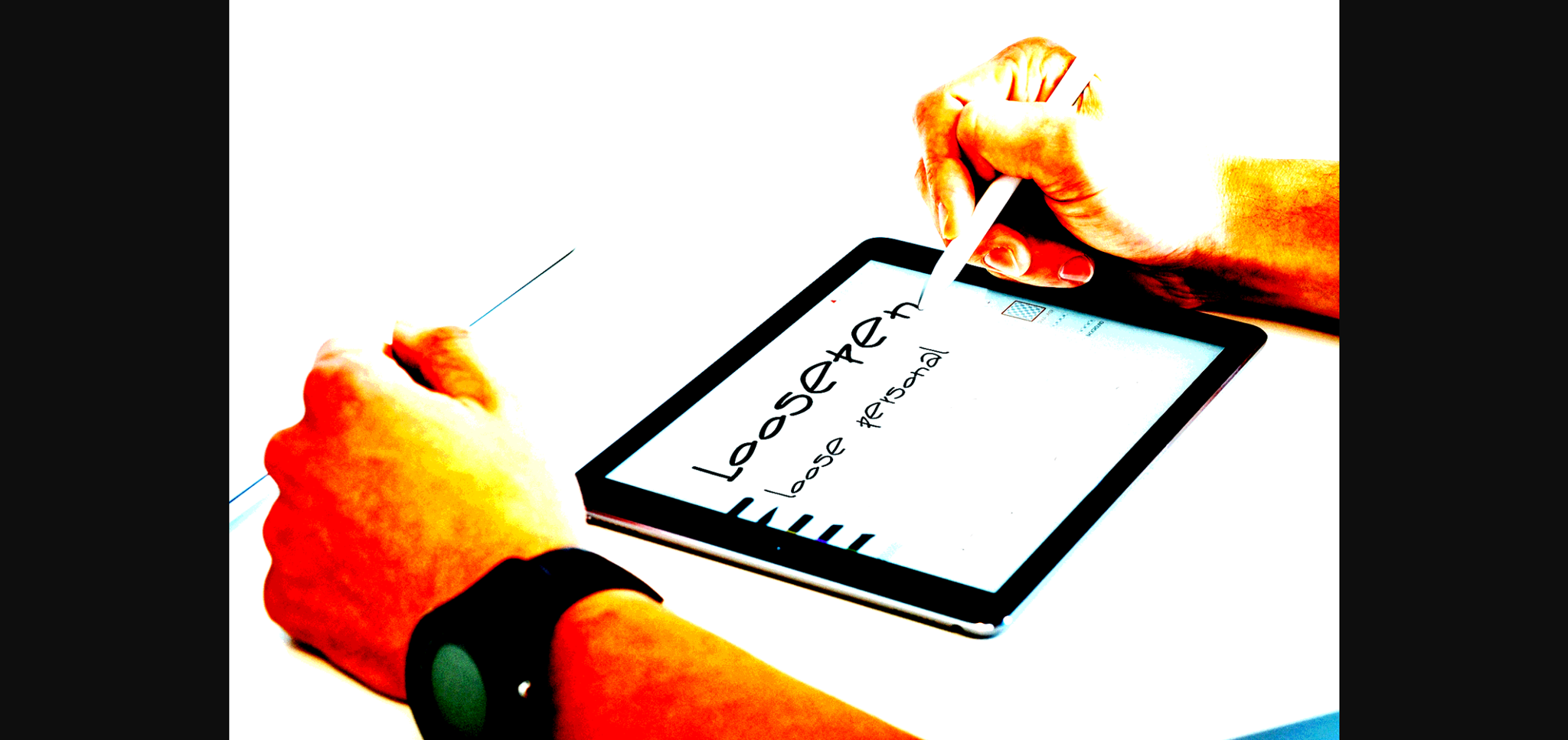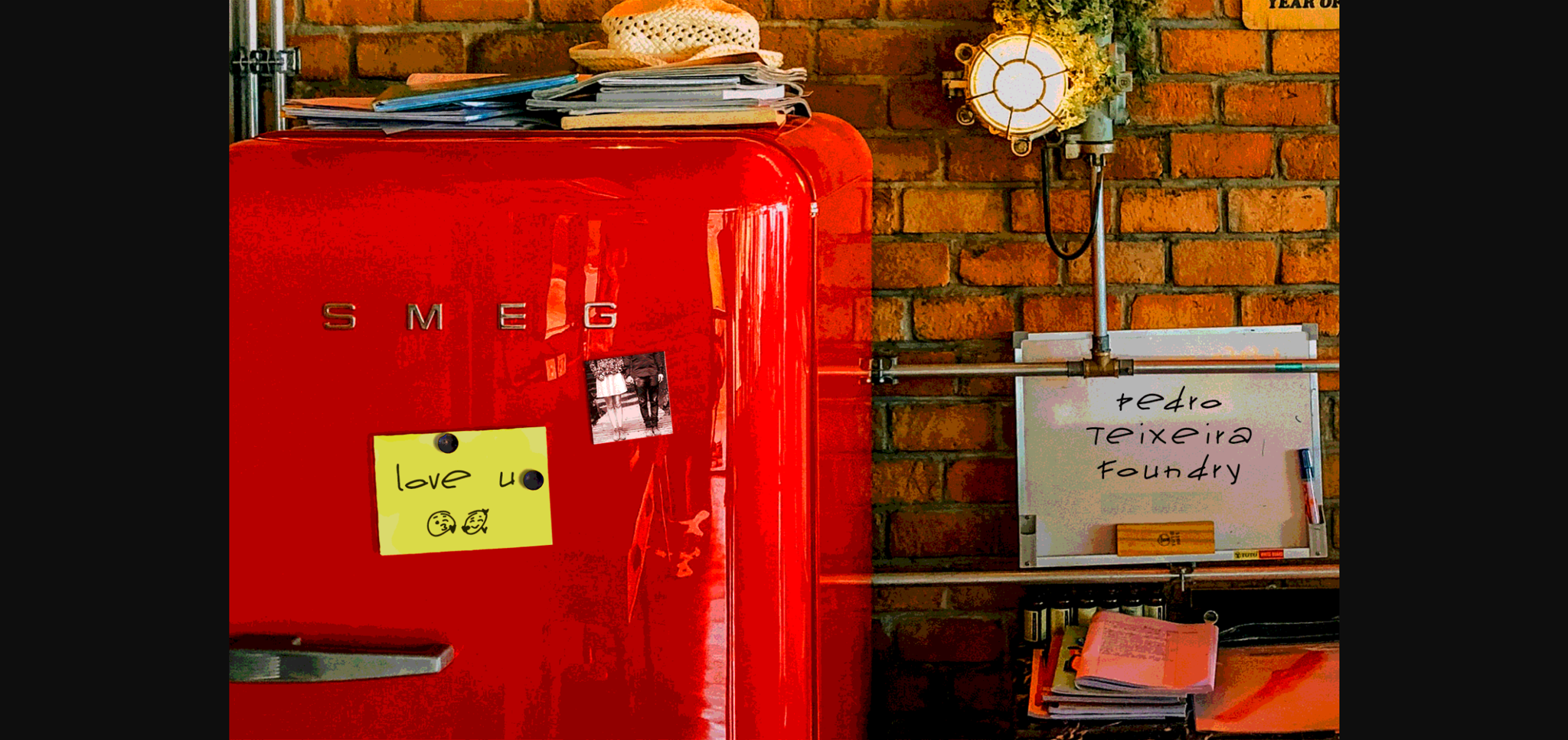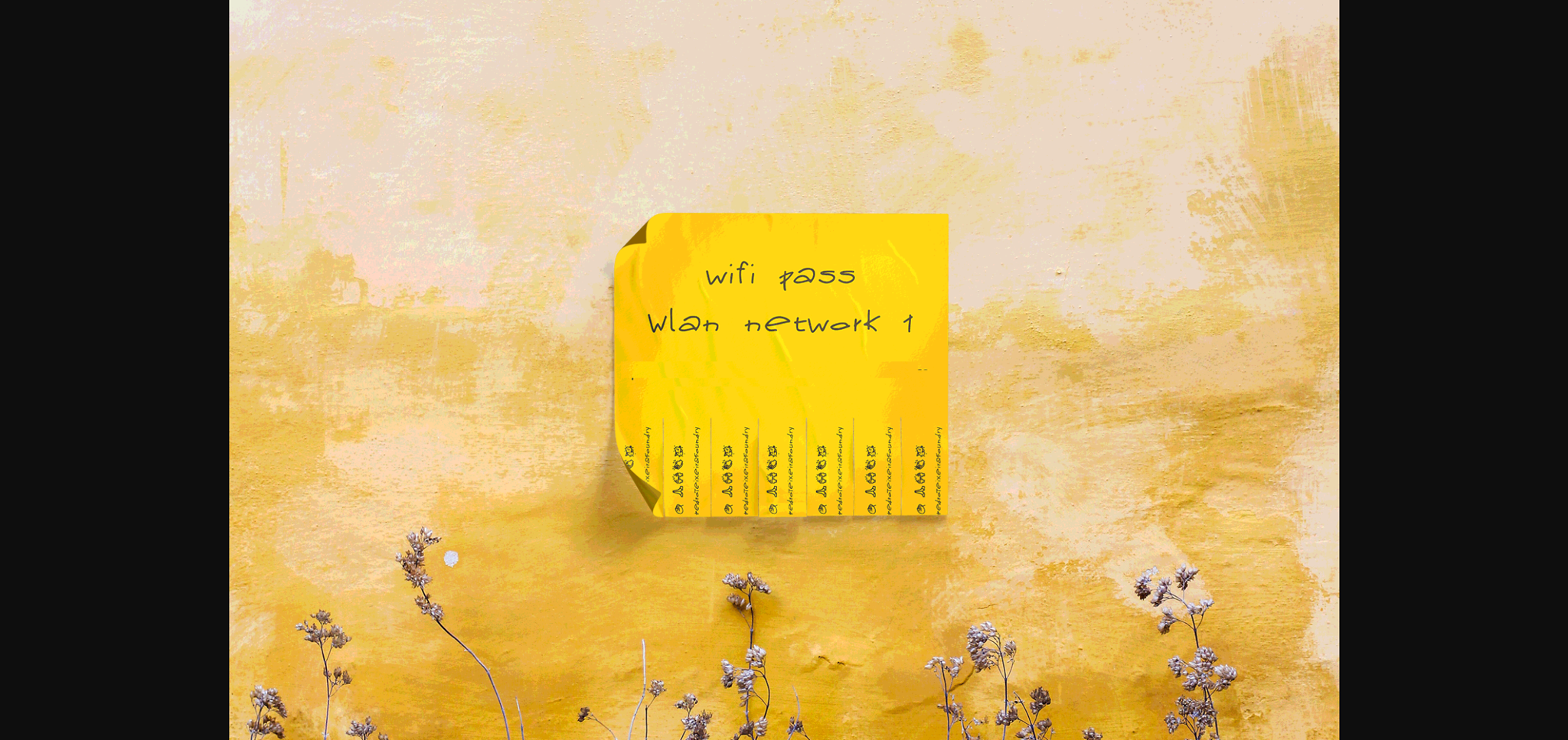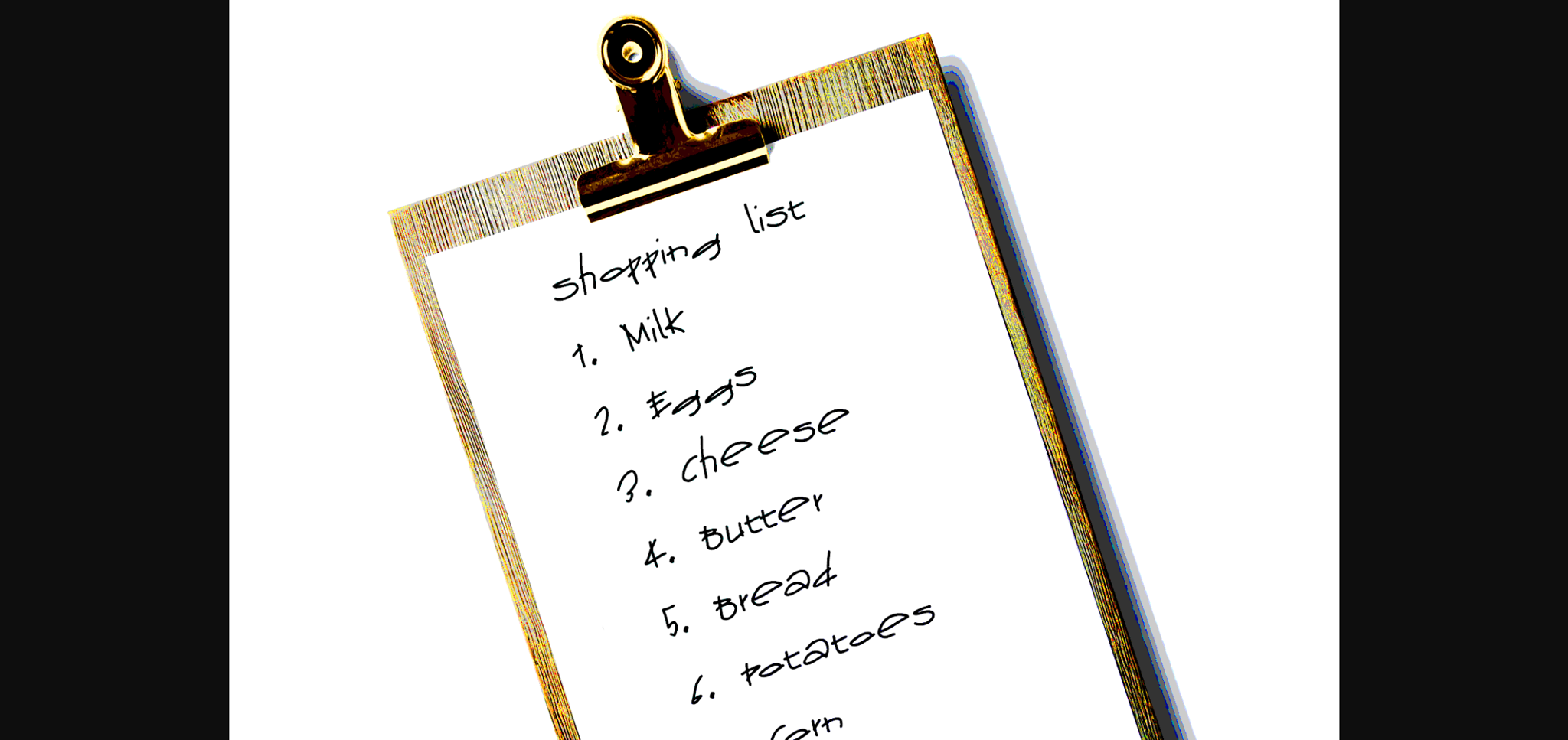
HomeSans Serif FontsLoose Pen Font Sans Serif Fonts Loose Pen Font FacebookXPinterestWhatsApp 1 of 6 ... Loose Pen Font Poster 2... Loose Pen Font Poster 3... Loose Pen Font Poster 4... Loose Pen Font Poster 5... Loose Pen Font Poster 6... About Loose Pen Font Do you suffer from OCD? Then this font is perfect for you! Or maybe not. With its stylish imperfections, this quirky handwritten sans serif font is suitable for a wide range of crafty ideas. DOWNLOAD NOW People also explored Arline Font Melage Font Fangs Font Steffinella Font Empirez – Slab Serif Font Jelly Mermaid Font Spydier Font Rahtian Queen Font Solihah Font 359 0 TagsLoose Pen Font Previous articleRoygen Display FontNext articleChocolada Font LEAVE A REPLY Cancel reply Comment: Please enter your comment! Name:* Please enter your name here Email:* You have entered an incorrect email address! Please enter your email address here Website: Save my name, email, and website in this browser for the next time I comment. Personal Use Free Fontmageddon Personal Use Free Read more about this font Charlie Personal Use Free Read more about this font Rogueland Personal Use Free Read more about this font Astagina Signature Personal Use Free Read more about this font BLOG How to Install and Use Fonts on Windows, macOS, and Web Projects How to Install and Use Fonts on Windows, macOS, and Web Projects Fonts are a crucial part of design and branding. Whether you’re designing a... 5 Fonts That Will Dominate Design Trends in 2026 Modern Sans-Serif Fonts That Brands Love in 2025 Top 10 Handwritten Fonts That Elevate Your Designs